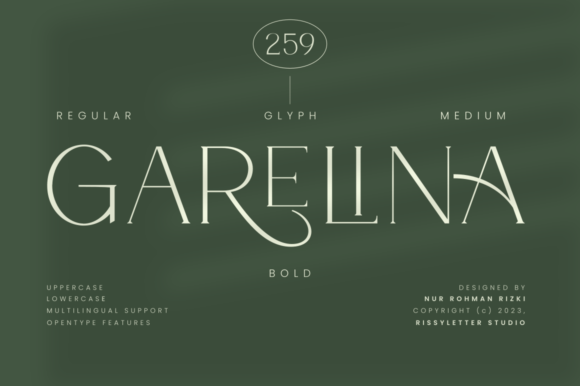
Looking for a minimalist and luxurious serif font for logos, web design, clothing promotions, brochures, and more? Garelina is the answer. This font has thin and smooth lines that make it look elegant and luxurious.
Garelina is perfect for branding and promotion purposes. With its delicate typography, this font can add aesthetic value to your design. Garelina also has several letter variants making it easy to use for various design types.